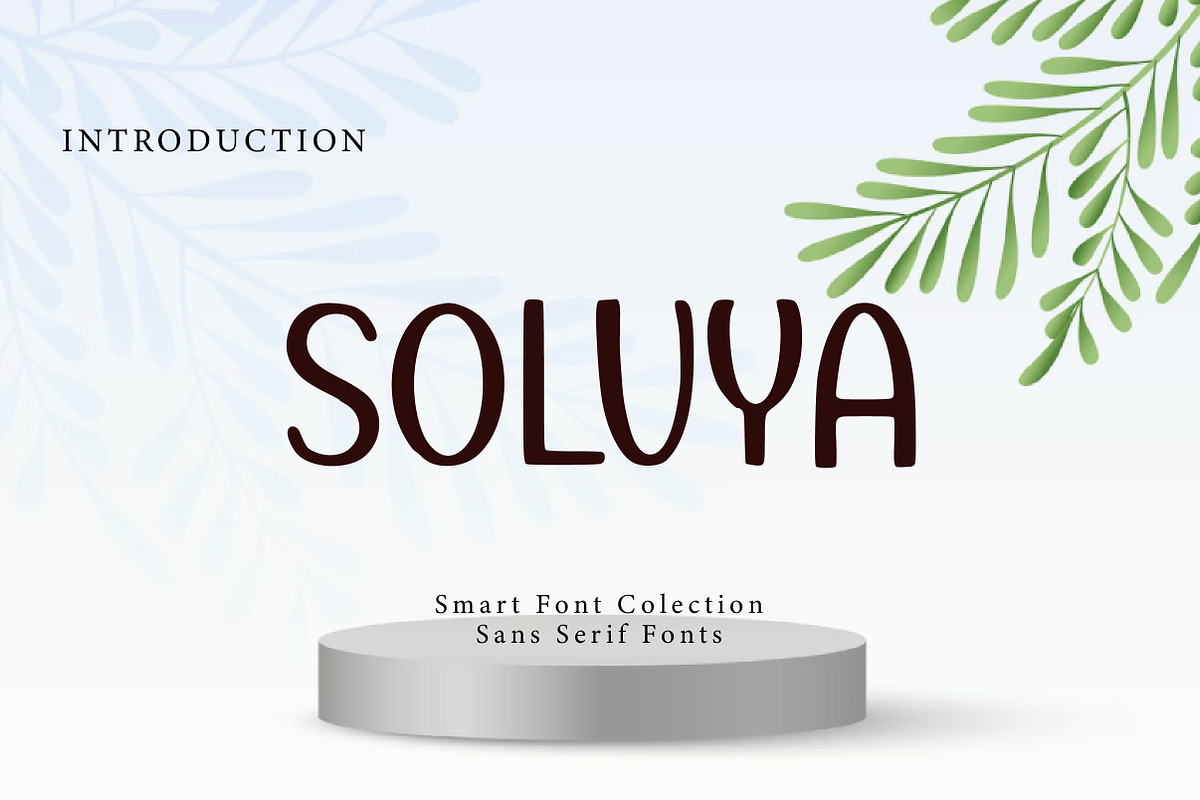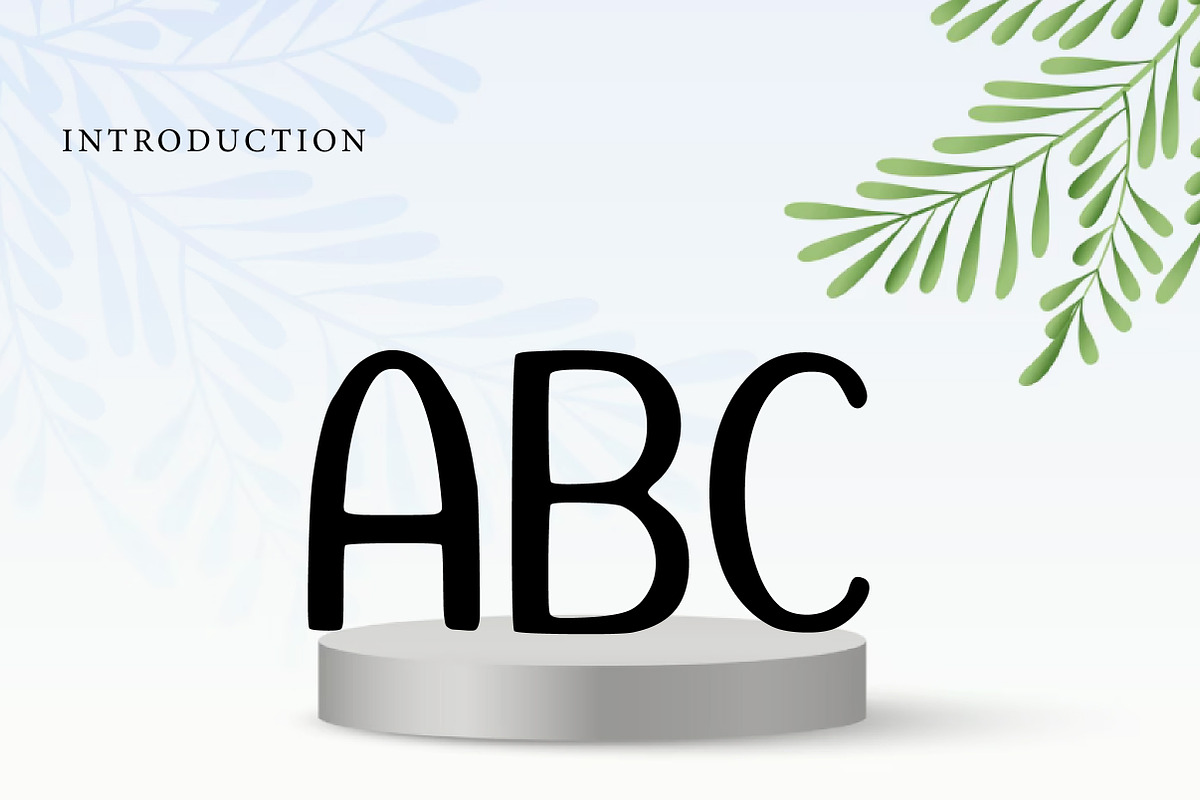
Solvya
Solvya is a modern and expressive display typeface with a soft, organic, and hand-crafted feel. Its rounded shapes and slightly irregular strokes create a friendly, playful, and artistic personality. The font is designed to feel human and warm, making it ideal for branding, logos, posters, headlines, social media graphics, creative projects, and children-friendly designs. Solvya stands out with its unique letterforms and smooth curves, giving designers a distinctive and memorable visual style.